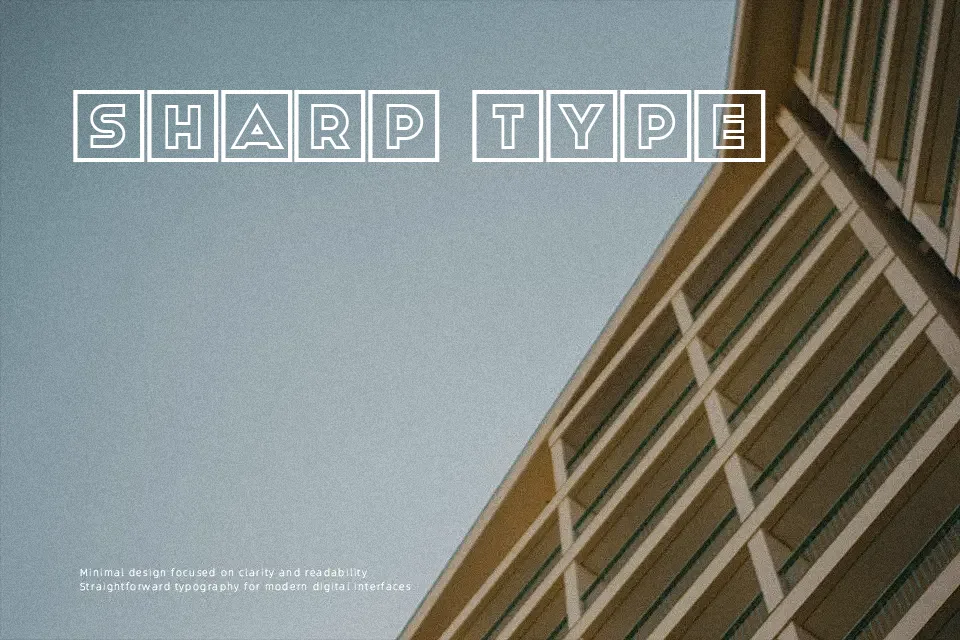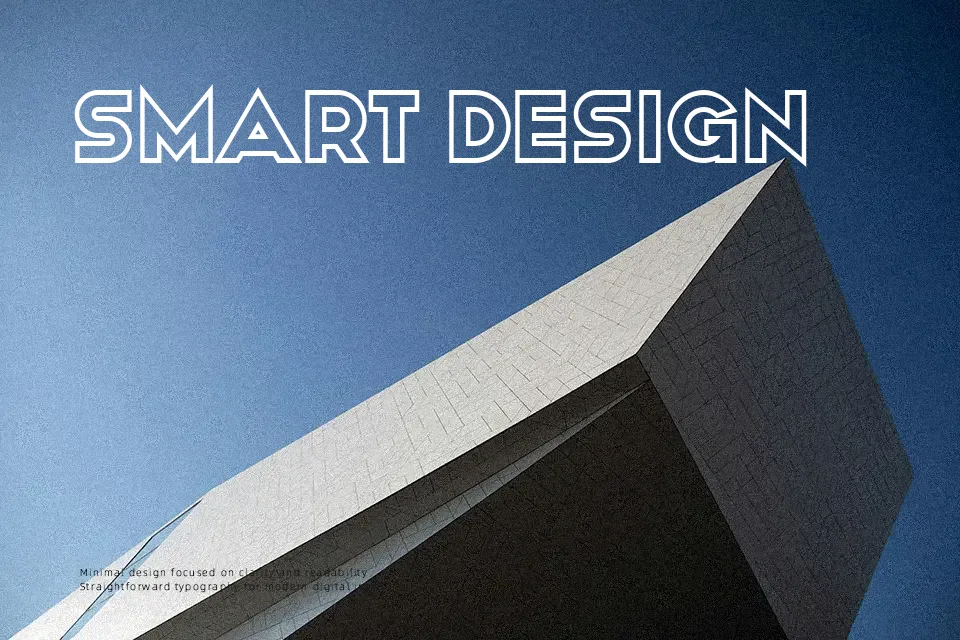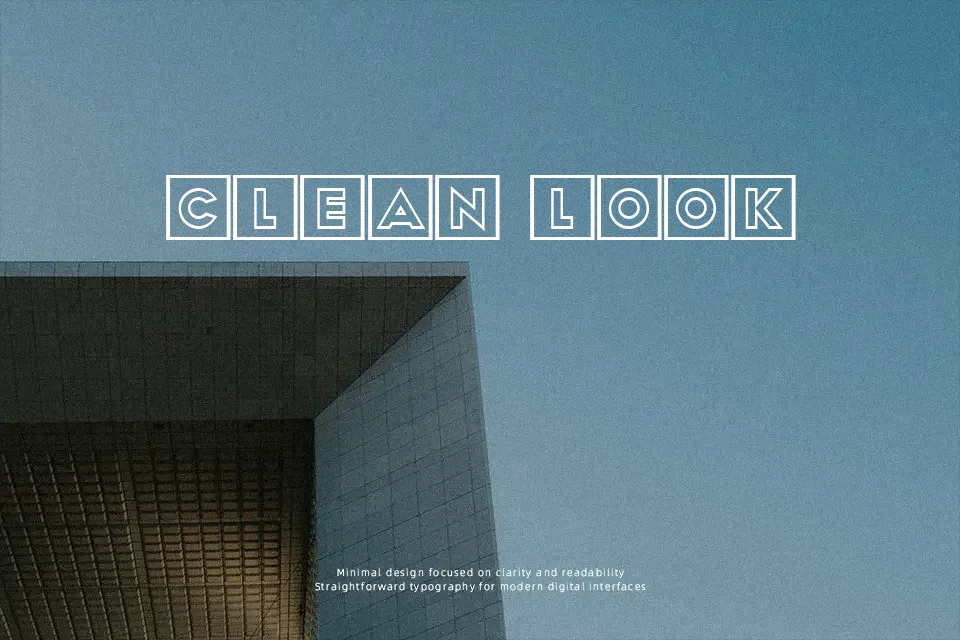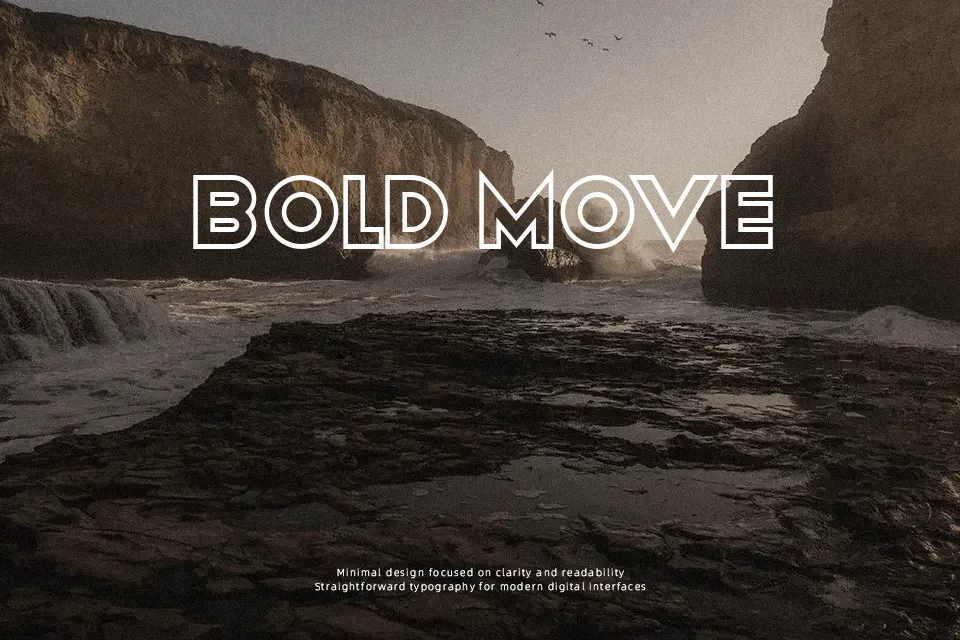
Avalon Square Font
Built on a strict grid logic, Avalon Square frames every character inside a square border, giving the typeface an instantly recognizable boxy silhouette. The strokes are bold and uniform with no contrast variation, producing a flat, graphic weight that reads well at large sizes. The outlined structure adds visual breathing room without lightening the overall impact. It works best for gaming logos, event posters, or streetwear graphics where that blunt, contained geometry feels intentional. At small sizes, however, the outline detail collapses and legibility suffers — this is not a font built for body copy or dense text blocks. Designers who need a similar feel for longer content will need a separate typeface for supporting text.
Best For:- Gaming team names and tournament posters
– Retro arcade or pixel-art themed event titles
– Streetwear and apparel graphic headers
– Short social media headline treatments
Not Ideal For:- Long paragraph text or body copy
– Corporate documents and professional reports
– Designs requiring small-size readability
– Multilingual layouts beyond basic Latin characters
Perfect for branding, gaming, and headline, with a bold and decorative style.